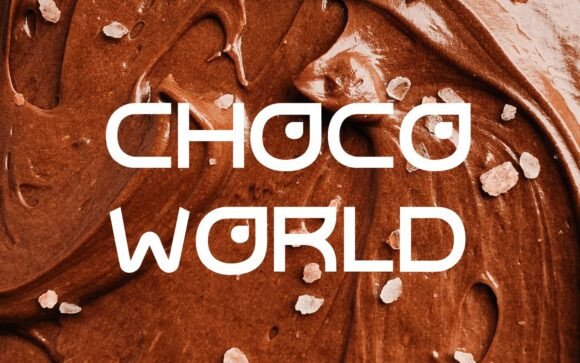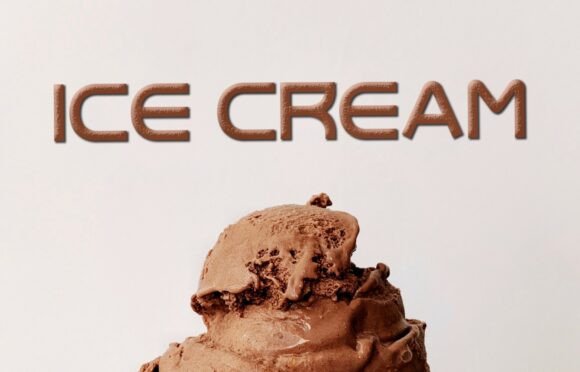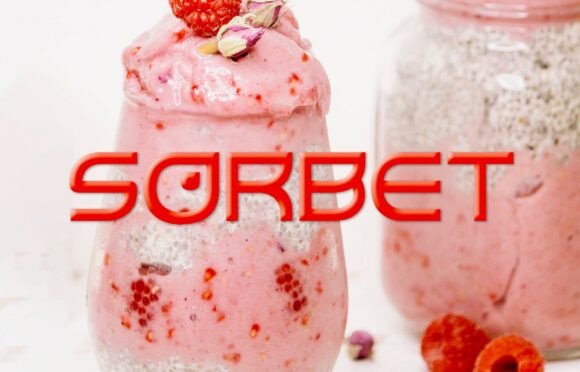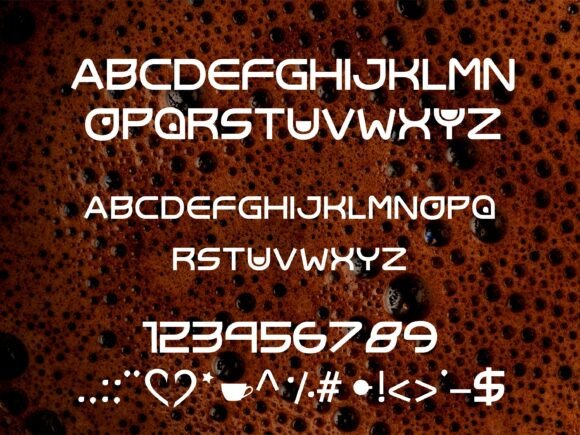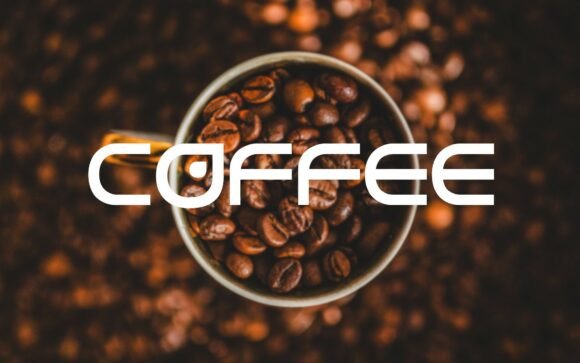
Coffee Font: The Perfect Blend for Your Design Compositions
Are you a coffee aficionado looking for a unique and refreshing typeface to elevate your design projects? Look no further! Introducing the Coffee Font, a distinct, clean-cut, and congenial typeface that’s sure to invigorate your caffeinated creations as much as a fresh cup of joe.
A Versatile Font for Coffee Lovers
The Coffee Font is a versatile typeface that features an intricate blend of uppercase, lowercase characters, numbers, and essential punctuations. This comprehensive font is perfect for designers, crafters, and coffee enthusiasts who want to add a touch of warmth and coziness to their designs. Whether you’re creating a logo, branding materials, or social media graphics, the Coffee Font is sure to provide the perfect aroma for your design compositions.
What Makes the Coffee Font Special?
So, what sets the Coffee Font apart from other typefaces? Here are a few features that make it a standout:
- Unique Character Set: The Coffee Font features a carefully crafted character set that includes uppercase and lowercase letters, numbers, and essential punctuations. Each character is designed to be distinct and legible, making it perfect for use in a variety of design projects.
- Clean-Cut Design: The font’s clean-cut design makes it easy to read and understand, even at small sizes. This makes it perfect for use in body text, headings, and titles.
- Congenial Style: The Coffee Font has a congenial style that’s reminiscent of a warm cup of coffee on a chilly morning. Its friendly and approachable design makes it perfect for use in branding materials, packaging, and advertising.
The Coffee Font is perfect for designers and crafters who want to add a touch of personality to their designs. Here are a few ways you can use the Coffee Font in your projects:
- Branding and Logo Design: Use the Coffee Font to create a unique and memorable logo for your coffee shop, cafe, or coffee-related business.
- Social Media Graphics: Add a touch of warmth and coziness to your social media graphics with the Coffee Font. Use it to create engaging and shareable content that will resonate with your audience.
- Packaging Design: Use the Coffee Font to create eye-catching packaging for your coffee products. Its clean-cut design and congenial style make it perfect for use on labels, bags, and other packaging materials.
Why You’ll Love the Coffee Font
So, why will you love the Coffee Font? Here are a few reasons:
- Easy to Read: The Coffee Font is easy to read and understand, even at small sizes. This makes it perfect for use in body text, headings, and titles.
- Highly Versatile: The Coffee Font is highly versatile and can be used in a variety of design projects, from branding and logo design to social media graphics and packaging.
- Unique and Memorable: The Coffee Font is a unique and memorable typeface that’s sure to stand out in any design project. Its congenial style and clean-cut design make it perfect for use in a variety of applications.
In conclusion, the Coffee Font is a distinct, clean-cut, and congenial typeface that’s perfect for coffee aficionados and designers alike. Its unique character set, clean-cut design, and congenial style make it perfect for use in a variety of design projects, from branding and logo design to social media graphics and packaging. Whether you’re looking to add a touch of warmth and coziness to your designs or simply want a unique and memorable typeface, the Coffee Font is sure to provide the perfect aroma for your design compositions.